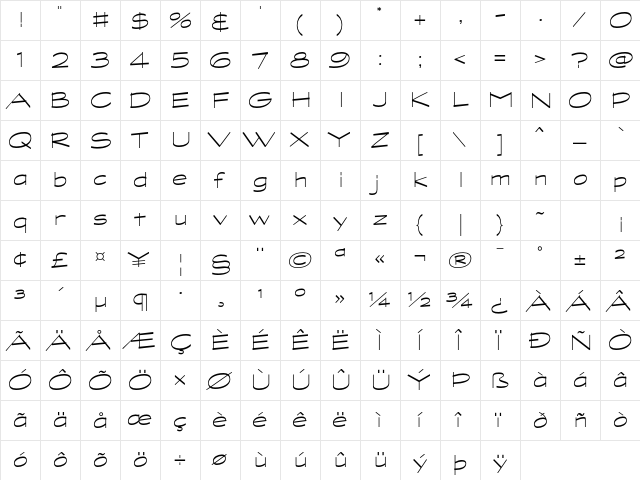
Graphite AT Extended Light Regular
Design Context for Graphite AT Extended Light Typeface
Graphite AT Extended Light is a composed and adaptable typeface that performs quietly and consistently across a wide range of design contexts. The delicate stroke weight brings airiness and refinement to layouts.